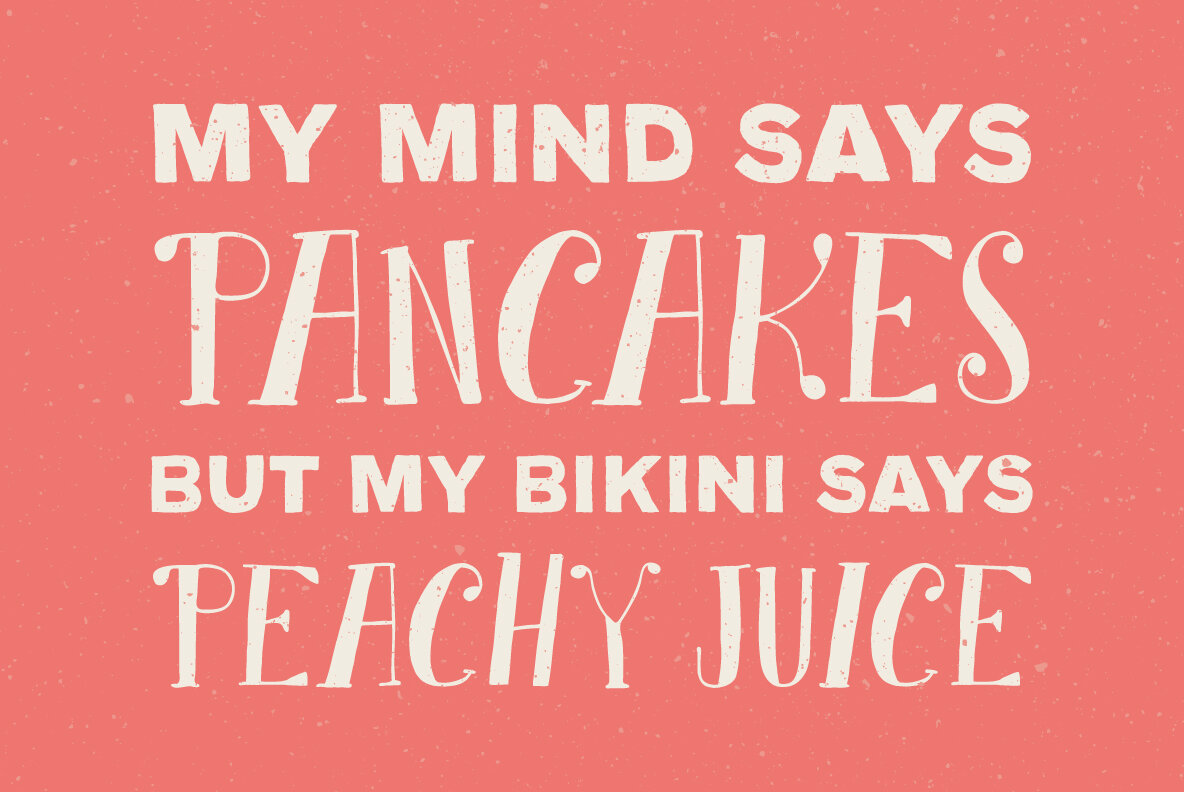
YWFT Mr Hyde
Foundry: YouWorkForThem
The potion led to the manifestation of evil within, and this twisted, stunted font certainly leaves no evil stone unturned, with fine linework that would make Edward Gorey shave his beard. With stylistic alternates and mutiple letterforms, along with pieces of art and accompanying flourishes, this creepy masterpiece will bring a flair of tie and tails with a strong evil presence. Beware!
YWFT Mr Hyde is packed with over 400 lovely glyphs, featuring OpenType options like Stylistic Alternates, Swash and Ornaments. This release also includes the original EPS Handset design for free with your purchase.